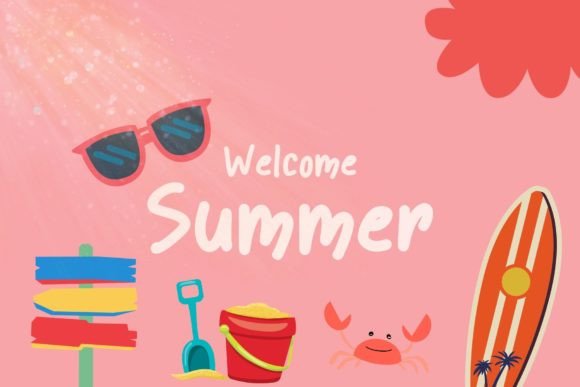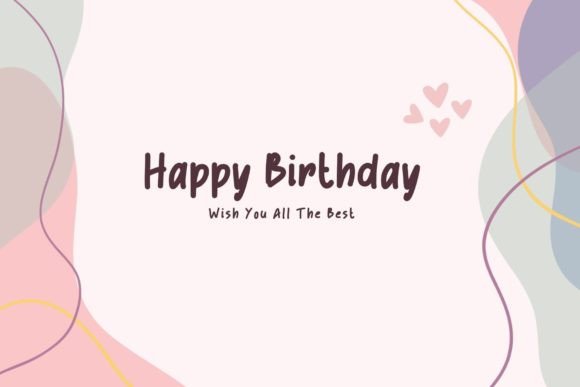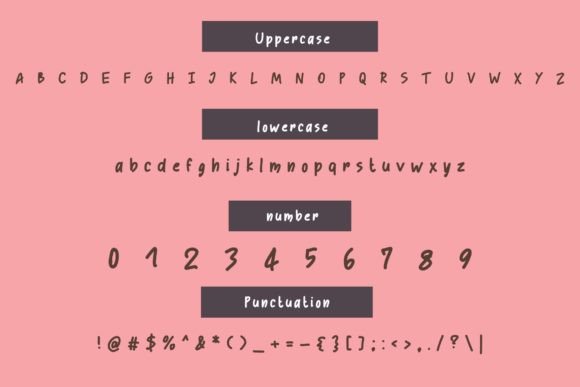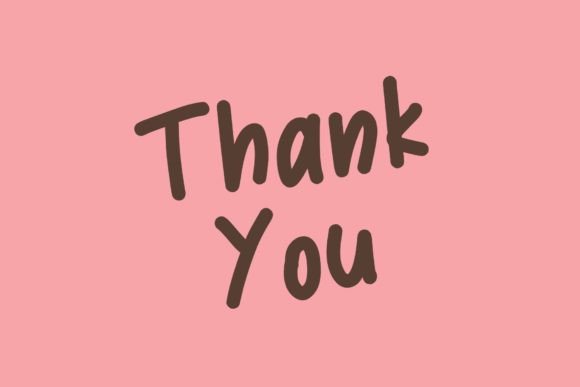
Introduction to Roggie Font
Have you ever been working on a creative project, pouring your heart and soul into the design, only to feel like something’s missing? The perfect font can make all the difference, and that’s where Roggie Font comes in. This adorable handwritten font is a game-changer for designers looking to add a touch of playfulness and authenticity to their work.
Rogie Font is a high-quality design resource that’s perfect for a wide range of creative projects, from blog posts and logos to invitations and photo albums. With its transparent background and free download option, it’s easy to incorporate into your designs and enjoy the results. Whether you’re a seasoned designer or just starting out, Roggie Font is a valuable addition to your toolkit.
Key Features of Roggie Font
- Roggie Font is a high-quality, free download font ideal for creative projects requiring a unique and eye-catching design resource.
- It features a transparent background, allowing for seamless integration with various design elements.
- Roggie Font offers a high-resolution design, making it suitable for use in various sizes and resolutions, including print and digital media.
- Its unique characteristics include a mix of modern and vintage elements, providing a distinctive look for creative projects.
- The font is highly customizable, allowing designers to adjust its style and appearance to suit their specific design needs.
- Roggie Font is a versatile design resource that can be used in a wide range of creative projects, from graphic design to digital art.
Honest Review: Roggie Font
I recently had the chance to try out the Roggie Font, and I must say, it’s a great addition to any designer’s toolkit. This free download is perfect for creative projects that require a touch of elegance and sophistication.
- ✨ High-quality design that’s sure to impress
- ✨ Unique and stylish typography that sets it apart from other fonts
- ✨ Transparent background, making it easy to use with any design element
- ⚠️ Limited character set, which may not be ideal for long blocks of text
- ⚠️ Not suitable for projects that require a bold, attention-grabbing font
Overall, I’m impressed with the Roggie Font. It’s a great design resource that’s perfect for projects that require a touch of sophistication and elegance. While it may have some limitations, it’s a high-quality font that’s sure to impress.
Use the Roggie Font on a transparent background to create a seamless design. Experiment with different font sizes and styles to add depth and visual interest to your project. Don’t forget to pair the Roggie Font with other design elements to create a cohesive look.
The Roggie Font is perfect for creative projects that require a unique and eye-catching design. Use it for logos, branding materials, social media graphics, and more. The font is also great for creating invitations, flyers, and brochures.